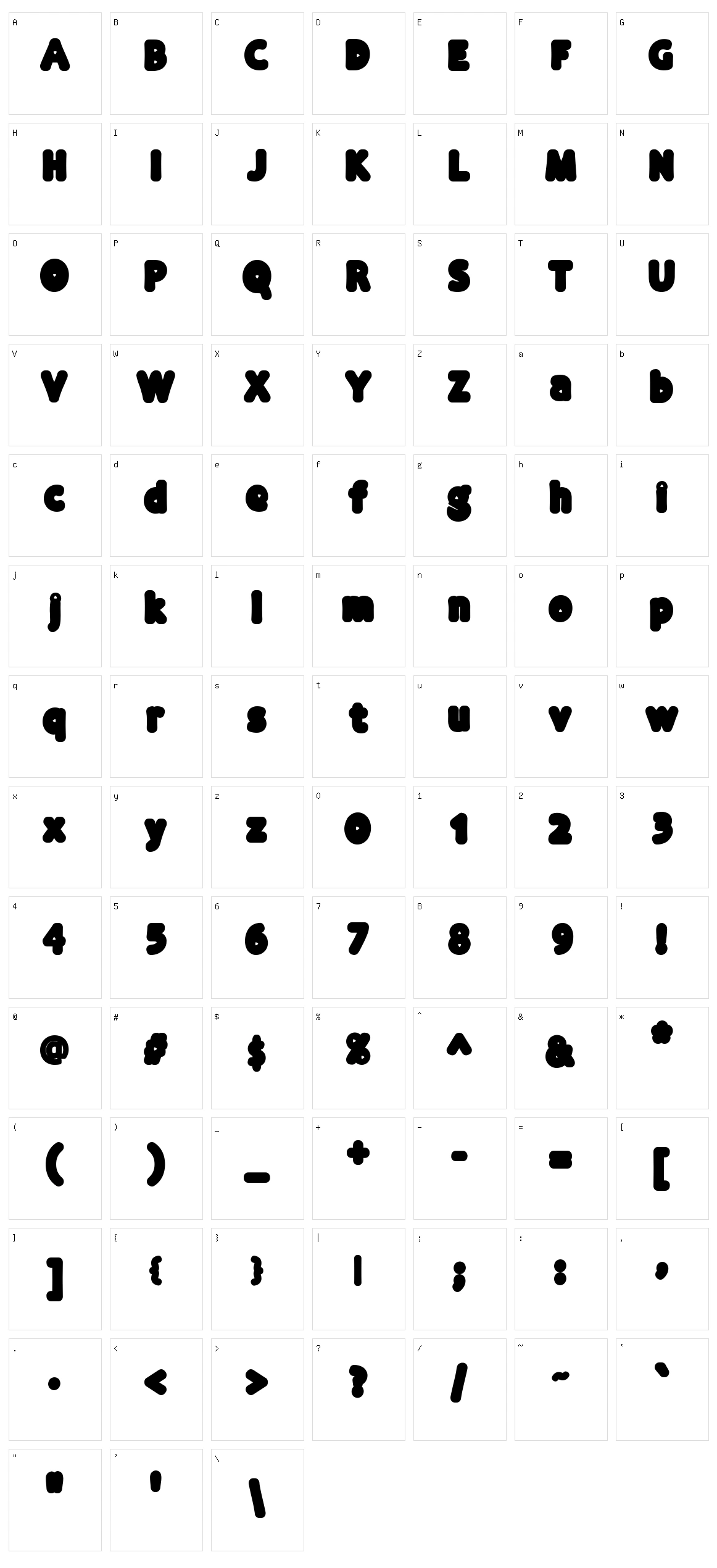
The free font New Kids is carefully designed by Rusd, showcasing a thoughtful balance of creativity and usability and falls under the Cartoon font style. When you download the ZIP file, it contains only 39.19 KB of font files, making it lightweight and quick to download. Please review the license details below to understand permitted usage and distribution rights. If license information is not available, we recommend using this font for personal projects only or contacting the author directly for commercial usage permissions.